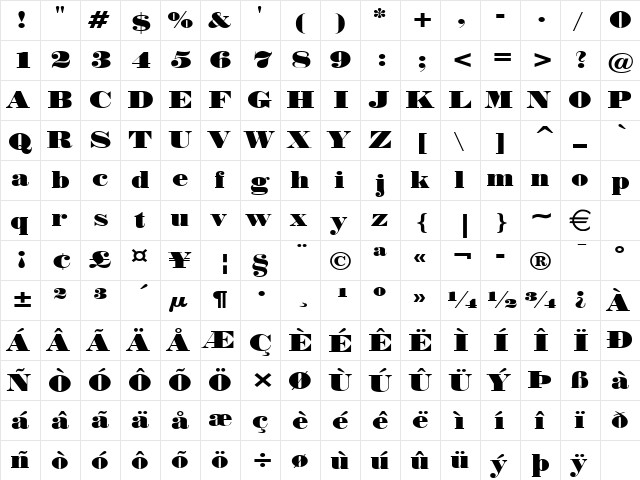
NorwayWide Normal
Design Context for NorwayWide Typeface
NorwayWide takes a measured approach to typography — its balanced proportions and neutral character make it a reliable workhorse for both digital and print work.